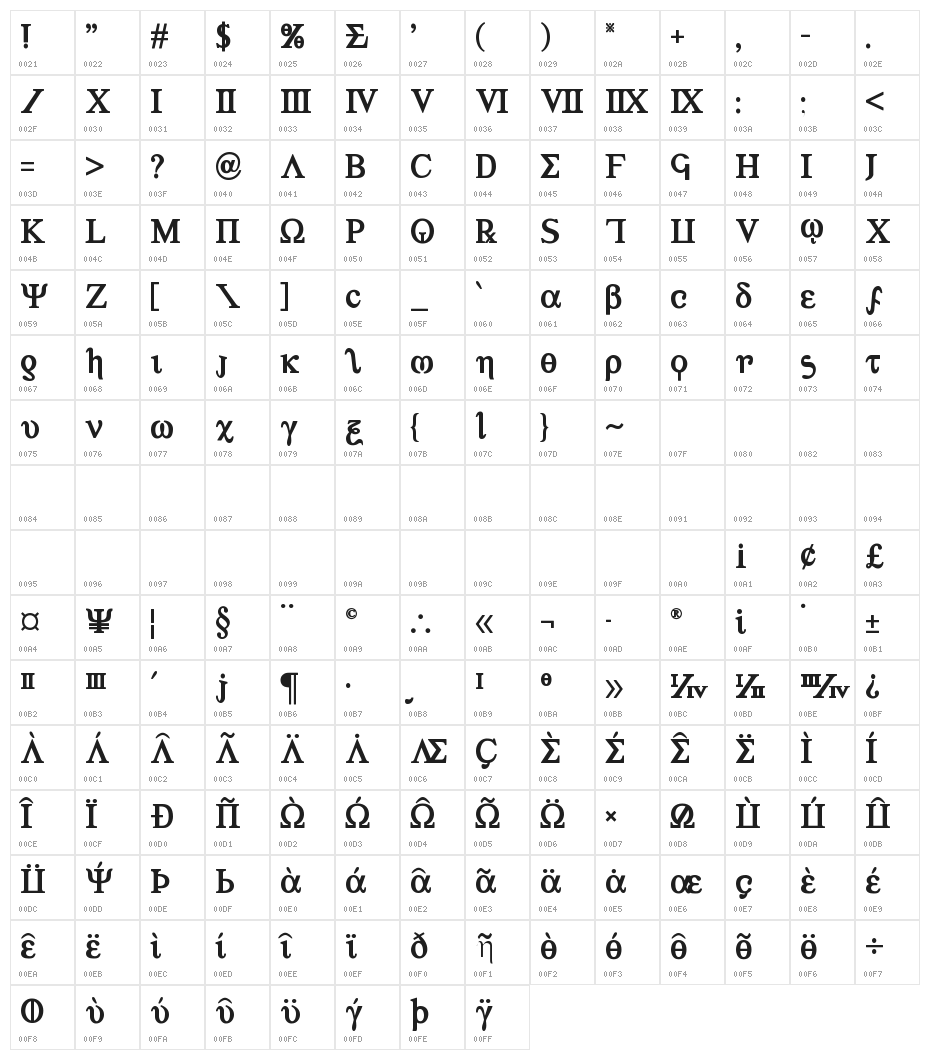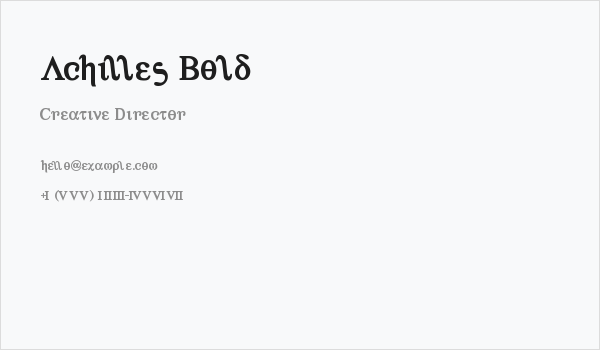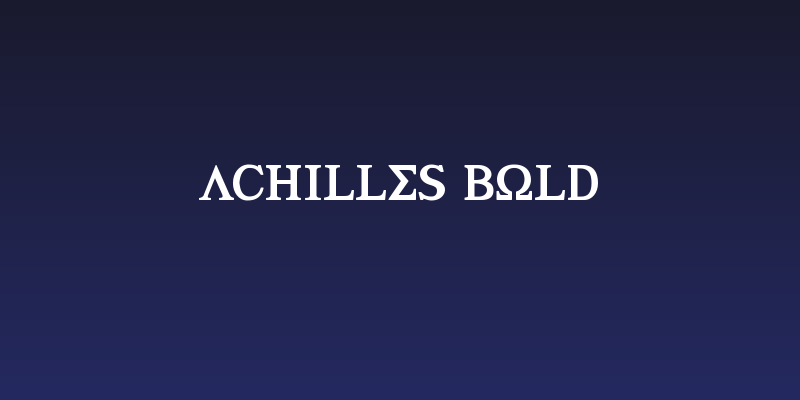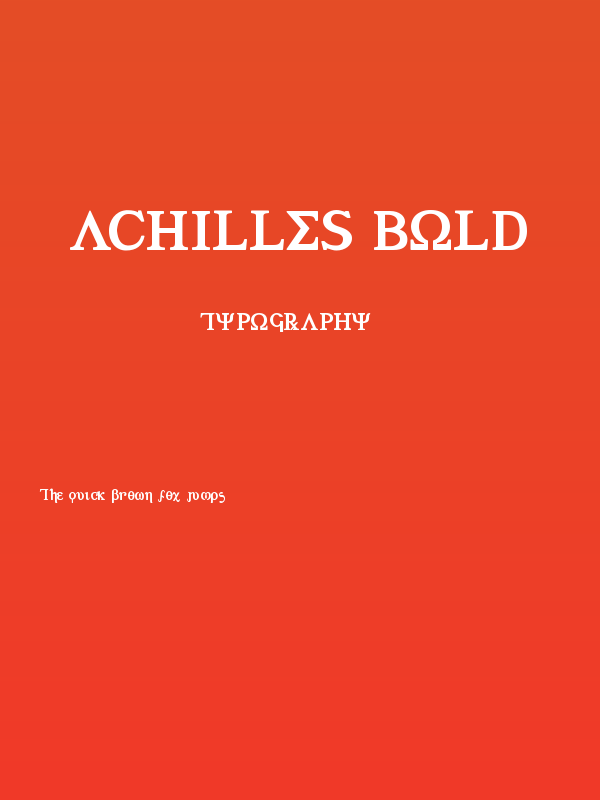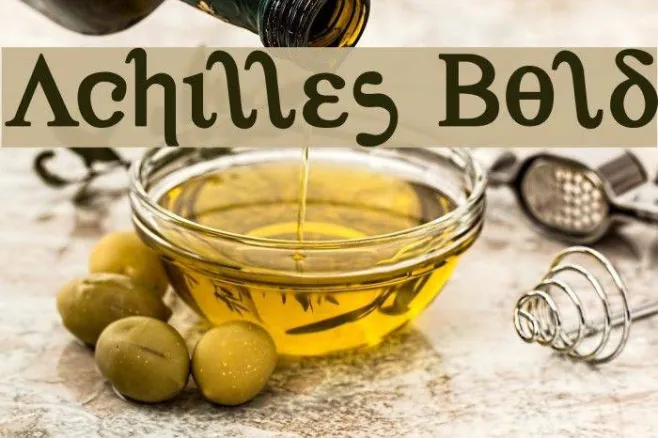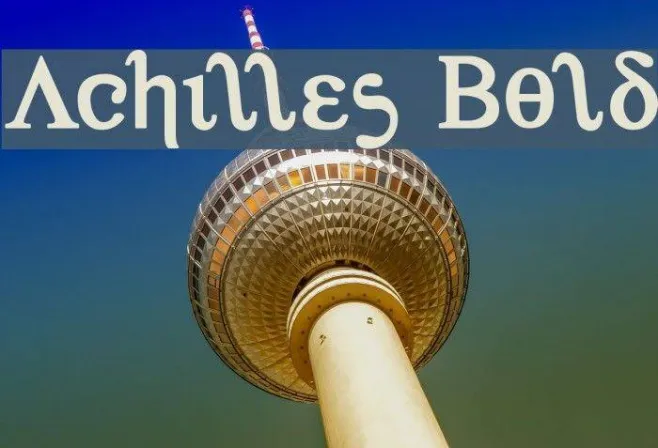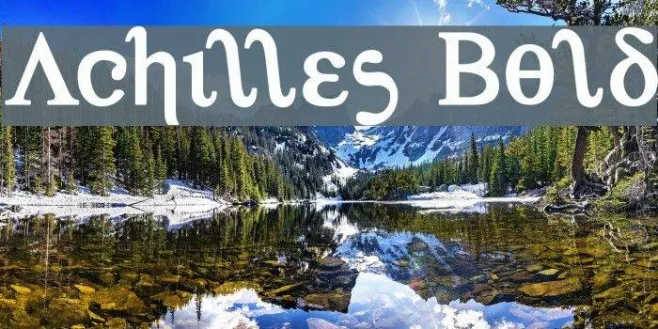
Achilles Bold Font
Achilles Bold Description
This font features a bold and striking design with a strong presence, characterized by its thick strokes and distinct serifs. The uppercase letters are particularly prominent, with a classical Greek influence evident in the shapes of certain characters. The lowercase letters maintain a consistent style, offering a harmonious blend with the uppercase. The numerals are clear and easy to read, while the special characters add a touch of elegance with their unique forms. Overall, this font exudes a sense of strength and tradition, making it suitable for impactful designs.
| Proposed Projects | Ideal for projects requiring a classical or historical touch, such as book covers, posters, or branding for educational institutions. |